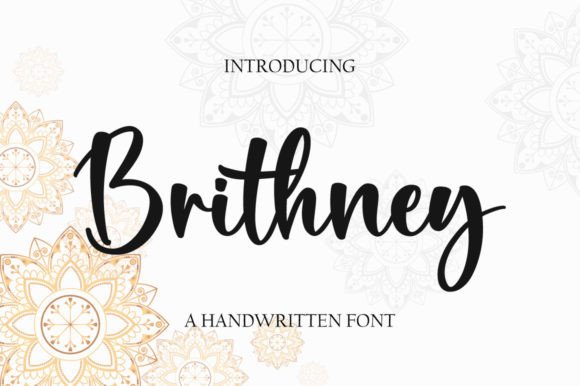
Introducing the Brithney Script Font Family - Where Beauty and Elegance Grace Every Design
Step into a realm of captivating aesthetics with Brithney, a flowing handwritten font that exudes pure elegance. Its delicate strokes and well-balanced characters dance across any design, adding a touch of grace and sophistication. Brithney is your key to unlock a world of beauty and refinement.
With Brithney, ordinary words transform into artistic expressions, flowing seamlessly from one letter to the next. Its exquisite design complements a diverse range of creative endeavors, from captivating beauty logos to alluring branding projects. Brithney's versatility knows no bounds, effortlessly enhancing everything it graces.
This stunning script font family, crafted by the masterful Graphix Line Studio, elevates your designs to new heights of sophistication. Whether you're crafting logos that radiate beauty or designing projects that demand a touch of elegance, Brithney is your ultimate choice.
Brithney's beauty lies in its intricate details, enchanting swashes, and delicate flourishes. Each character carries a unique charm, harmonizing perfectly to create a seamless flow of elegance. This font family is a true masterpiece, designed to captivate and inspire.
With Brithney, you hold the power to transform ordinary designs into extraordinary creations. Its refined aesthetic adds an undeniable touch of beauty, leaving a lasting impression on your audience. This font family is an investment in elegance, versatility, and sheer brilliance.
Embrace the allure of Brithney's exquisite script and unveil a world of creative possibilities. Let your designs bloom with elegance, captivating beauty in every stroke. Experience the transformative power of Brithney, the font that redefines beauty in design.